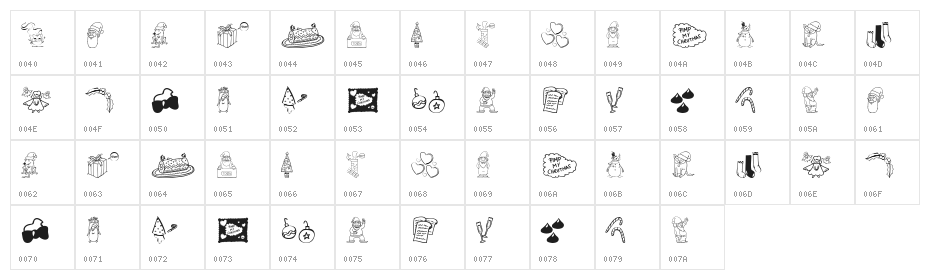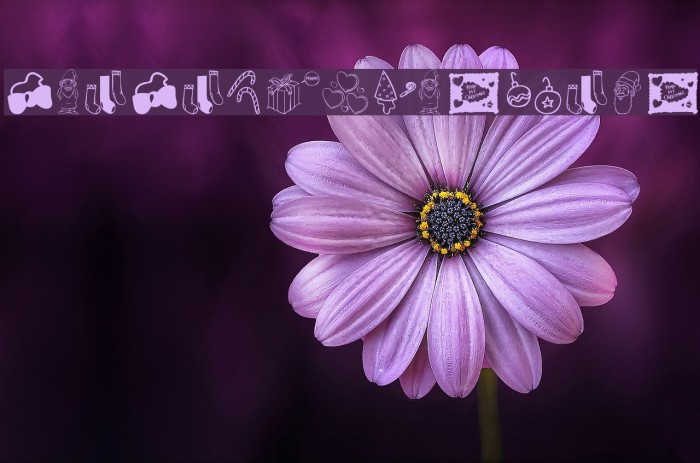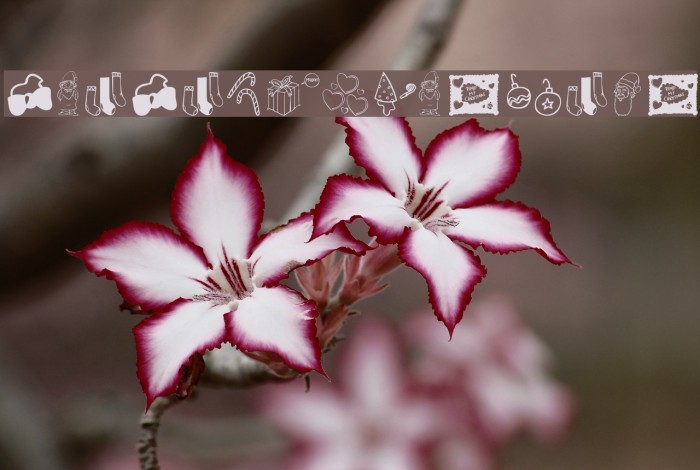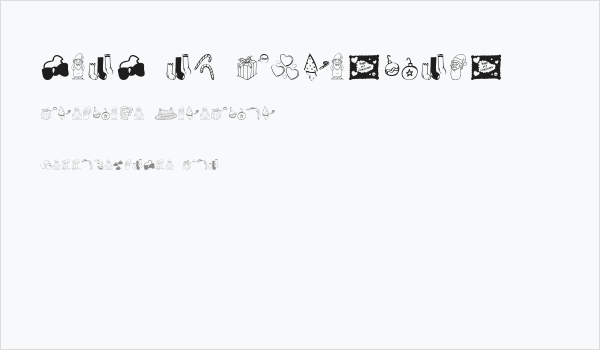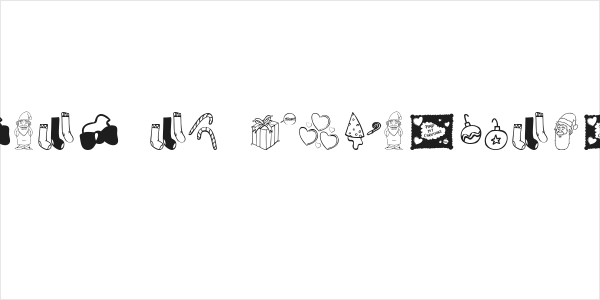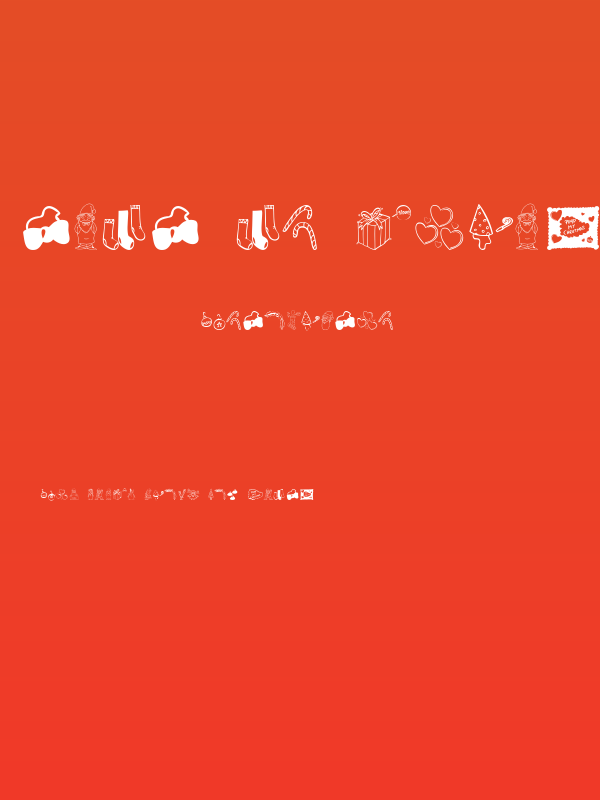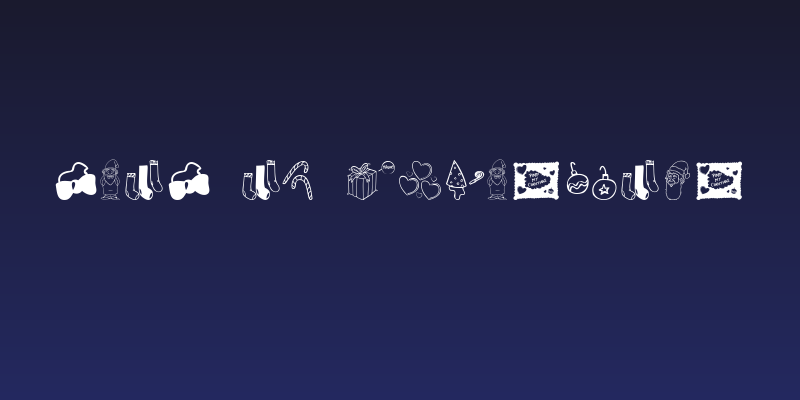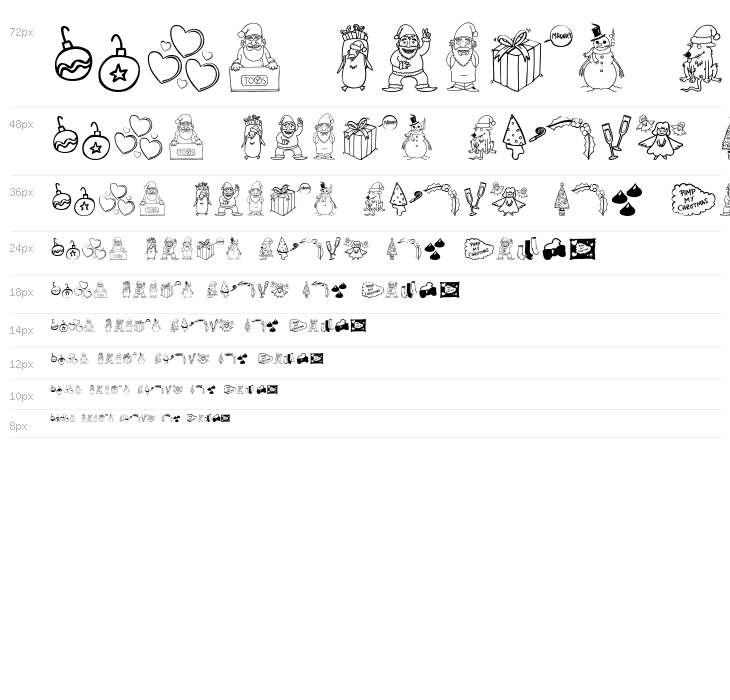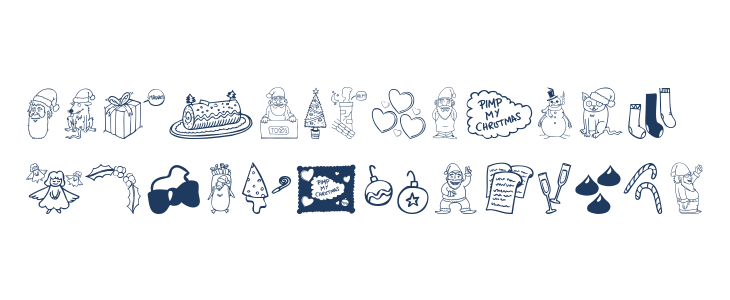
Pimp My Christmas Font
Pimp My Christmas Description
This collection features a whimsical and festive array of Christmas-themed illustrations. Each character and object is intricately designed, capturing the playful spirit of the holiday season. The set includes a variety of elements such as Santa Claus, Christmas trees, gifts, and other holiday icons, each rendered with a cartoonish and lighthearted style. The illustrations are detailed, with a mix of bold and fine lines, creating a dynamic and engaging visual experience. The playful nature of the designs makes them ideal for adding a touch of holiday cheer to any project.
| Use Case | Logos, Decorative elements |
| Proposed Projects | Ideal for holiday greeting cards, festive party invitations, Christmas-themed merchandise, and seasonal decorations. |